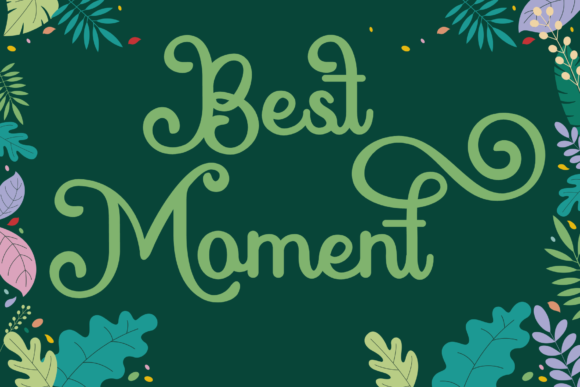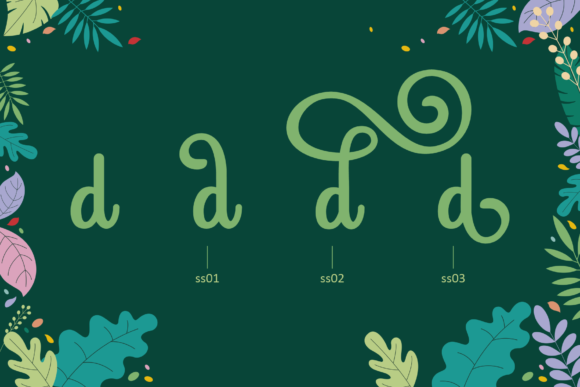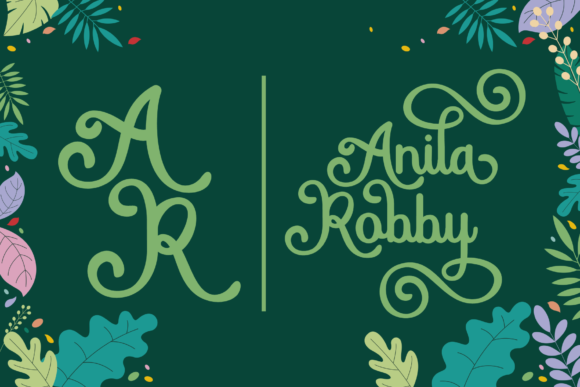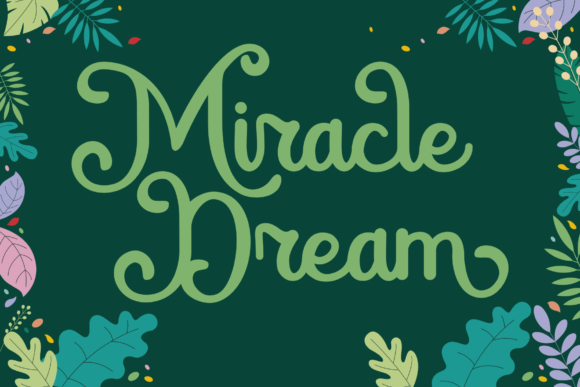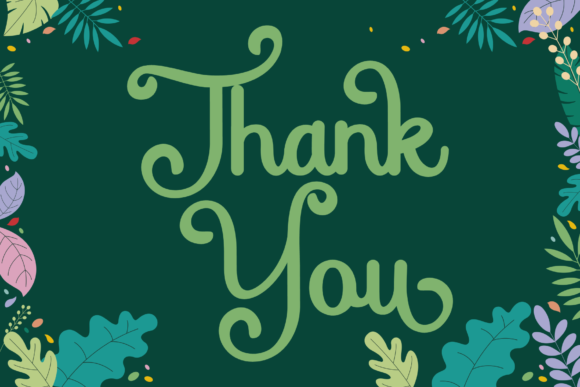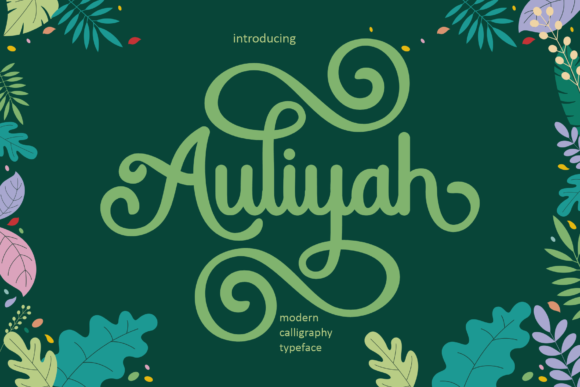
Auliyah Font: Elevate Your Designs with Elegance and Sophistication
In the world of typography, a font can make or break a design. For designers and crafters seeking to add a touch of elegance and sophistication to their creations, Auliyah Font is an exceptional choice. This chic, well-balanced, and delicate script font boasts a vintage style that is sure to captivate audiences and elevate your designs to new heights.
What is Auliyah Font?
Auliyah Font is a beautiful script font that exudes refinement and poise. Its intricate strokes and flowing lines evoke a sense of nostalgia, reminiscent of classic typography from a bygone era. This font is meticulously crafted to provide a perfect balance of elegance and legibility, making it an ideal choice for a wide range of design applications.
Key Features of Auliyah Font
- Chic and Delicate: Auliyah Font features a slender and refined design that adds a touch of sophistication to any project.
- Well-Balanced: The font’s carefully crafted letterforms ensure a perfect balance of positive and negative space, creating a harmonious visual experience.
- Vintage Style: Auliyah Font’s classic design elements evoke a sense of nostalgia and timelessness, perfect for creating unique and captivating designs.
- Elegant: The font’s flowing lines and intricate strokes add an air of refinement and poise to any project.
- Versatile: Auliyah Font is suitable for a wide range of design applications, from logos and branding to packaging, invitations, and more.
Why Choose Auliyah Font?
With so many fonts available, why choose Auliyah Font for your design projects? Here are just a few compelling reasons:
- Unique and Memorable: Auliyah Font’s distinctive design ensures that your creations will stand out from the crowd and leave a lasting impression.
- Easy to Read: Despite its elegant and delicate design, Auliyah Font remains highly legible, making it perfect for body text and headlines.
- Highly Versatile: Auliyah Font can be used in a variety of design contexts, from formal and professional to creative and playful.
- Timeless Appeal: The font’s vintage style ensures that your designs will remain relevant and stylish for years to come.
Design Applications for Auliyah Font
Auliyah Font is an incredibly versatile design asset that can be used in a wide range of applications, including:
- Logo Design: Create stunning logos that exude elegance and sophistication.
- Branding: Establish a strong brand identity with Auliyah Font’s refined and poised design.
- Packaging: Add a touch of luxury and sophistication to your product packaging.
- Invitations: Create beautiful and memorable invitations for special occasions.
- Signage: Use Auliyah Font to create eye-catching signage that commands attention.
Tips for Using Auliyah Font
To get the most out of Auliyah Font, here are a few expert tips:
- Pair with Contrasting Fonts: Combine Auliyah Font with contrasting fonts to create visual interest and hierarchy.
- Experiment with Colors: Try Auliyah Font with different colors and textures to add depth and dimension to your designs.
- Pay Attention to Spacing: Ensure that your text is properly spaced to maintain legibility and visual flow.
Auliyah Font is a stunning script font that offers a perfect blend of elegance, sophistication, and versatility. With its chic and delicate design, vintage style, and highly legible letterforms, this font is sure to become a go-to choice for designers and crafters seeking to elevate their creations. Whether you’re working on a logo, branding project, or packaging design, Auliyah Font is an exceptional choice that will help you create unique and captivating designs that leave a lasting impression.